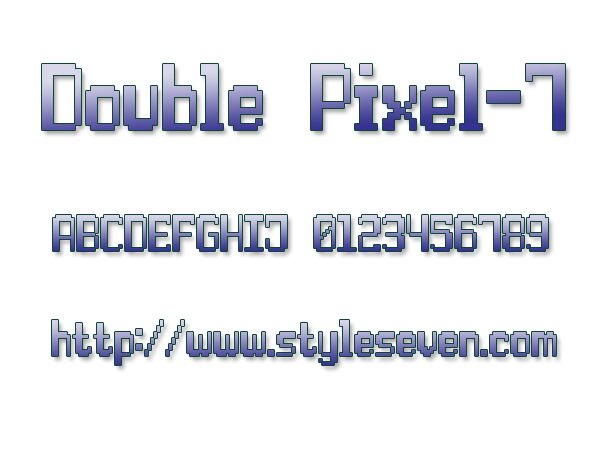
Double Pixel-7 by Style-7 is a free narrow pixel font with the lean proportions of an early computer display. Its letters alternate between tall, compact forms and broader shapes, with squared openings and a notably light stroke.
Digital graphics are its clearest setting, particularly game menus and retro software mockups with a spare electronic look. It also suits technology posters and music merchandise through its mix of narrow and wide letters. In games, the lettering can become part of the interface, linking labels, score panels, and title art.
Double Pixel-7
Style-7
Sizenko Alexander